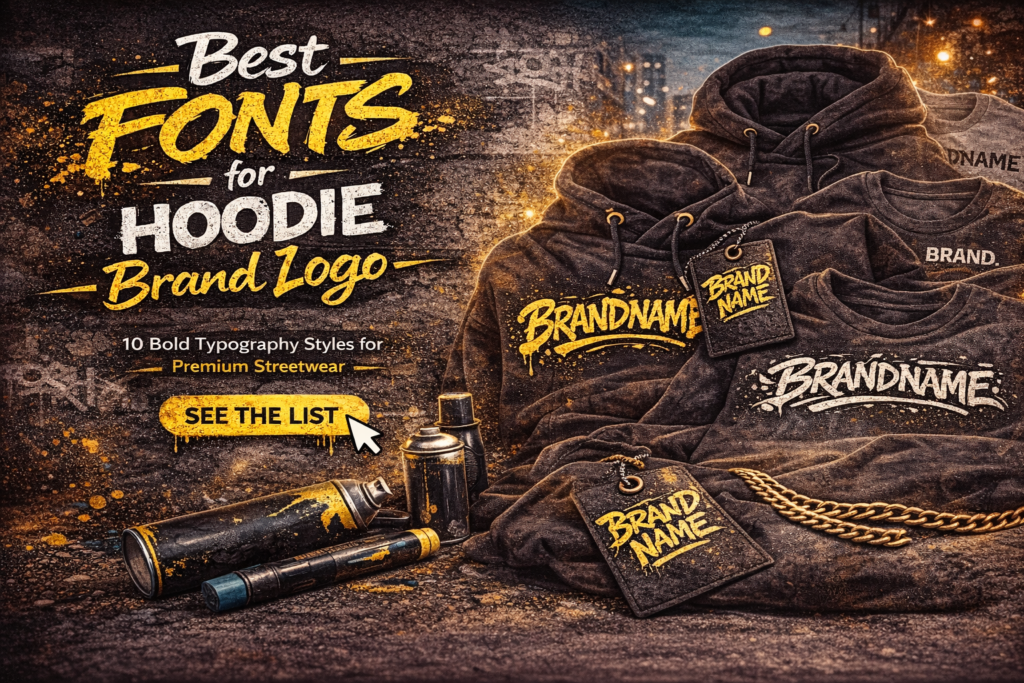
Choosing the best fonts for hoodie brand logo is one of the most important decisions in building a strong streetwear identity. Hoodies are one of the most iconic products in fashion and urban apparel, and the logo often becomes the core of brand recognition.
The right typography can make your hoodie brand look premium, exclusive, and highly desirable.
In this guide, we’ll explore the best typography styles for hoodie brand logos and how to choose the right font for your apparel identity.
Why Typography Matters for Hoodie Branding
In streetwear, hoodies are more than clothing.
They represent culture, community, and exclusivity.
Typography affects:
• brand recognition
• drop appeal
• exclusivity
• product memorability
A strong logo font helps your hoodie brand stand out.
10 Best Fonts for Hoodie Brand Logo
1. Graffiti Fonts
Perfect for:
• streetwear hoodies
• skater brands
• youth apparel
Creates strong urban identity.
2. Gothic Fonts
Excellent for:
• luxury streetwear
• dark fashion brands
• premium drops
3. Brush Fonts
Adds energy and personality.
Perfect for modern apparel branding.
4. Bold Sans Serif Fonts
Minimal but strong.
Ideal for premium hoodie labels.
5. Drip Fonts
Creates edgy rebellious vibes.
Perfect for hype drops.
6. Wildstyle Fonts
Highly expressive.
Best for bold branding.
7. Distressed Fonts
Perfect for rugged and vintage apparel aesthetics.
8. Minimal Urban Fonts
For premium and modern hoodie brands.
9. Display Fonts
Creates strong logo memorability.
10. Custom Lettering Fonts
Best for unique brand identity.
Highly recommended.
How to Choose the Best Fonts for Hoodie Brand Logo
Choose based on:
Brand Positioning
Luxury → gothic / minimal
Urban → graffiti / wildstyle
Lifestyle → brush / sans serif
Readability
Logo must remain clear on:
• chest print
• sleeve tag
• hoodie label
• website
Scalability
Works for both embroidery and large print.
Final Thoughts
Choosing the best fonts for hoodie brand logo is crucial for building strong identity and increasing perceived product value.
Typography can directly influence how premium and exclusive your brand looks.
Using professional fonts helps your apparel brand stand out.